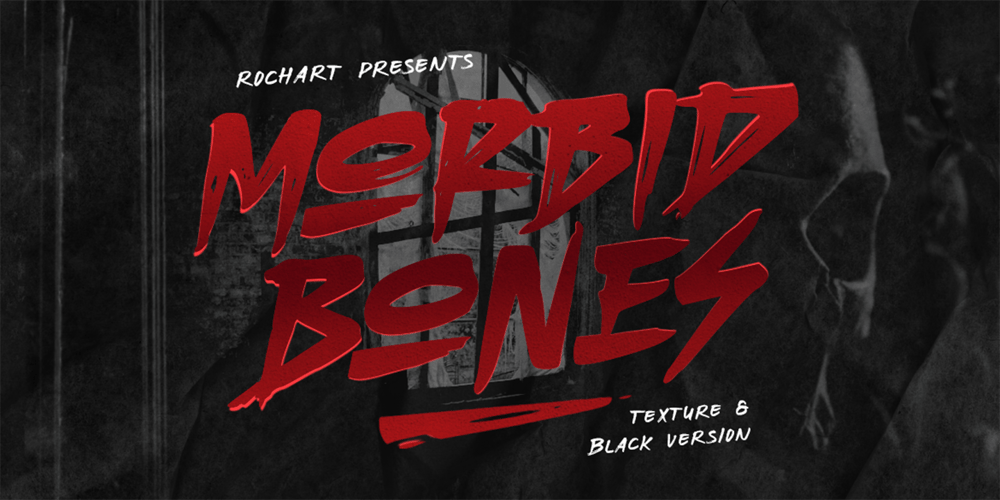
Morbid Bones Font Family was designed by Rochadi Sudarma and published by Rochart. Morbid Bones contains 7 styles and family package options. Experience spine-chilling design with Morbid Bones, an exceptional font family that redefines horror-themed typography. Crafted with genuine brush strokes, Morbid Bones embodies the macabre, making it the perfect choice for all your sinister design needs. Morbid Bones is more than a font; it’s an invitation to explore the darkest corners of your imagination. Whether you’re a graphic designer, filmmaker, or a Halloween enthusiast.